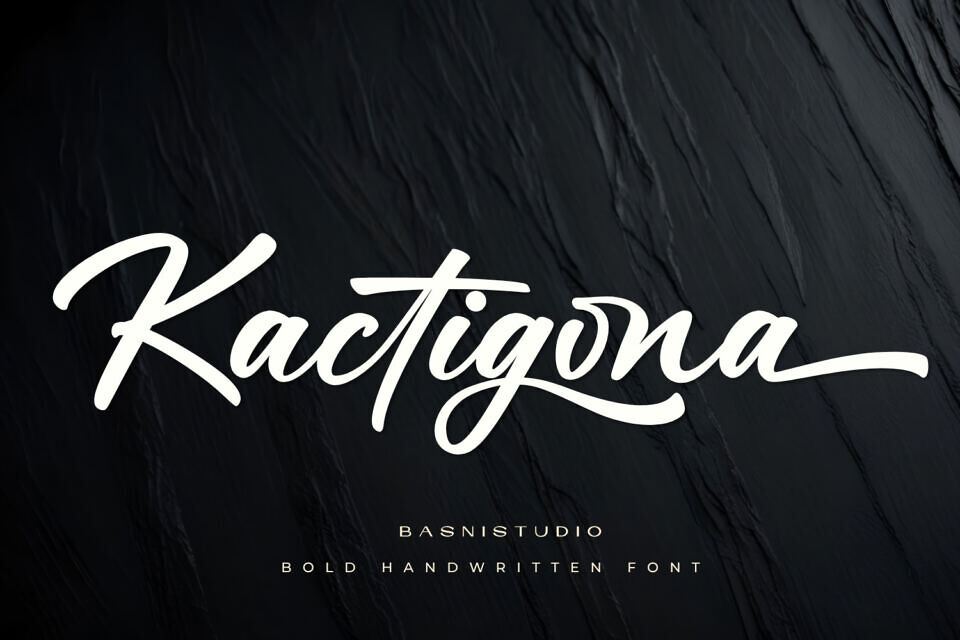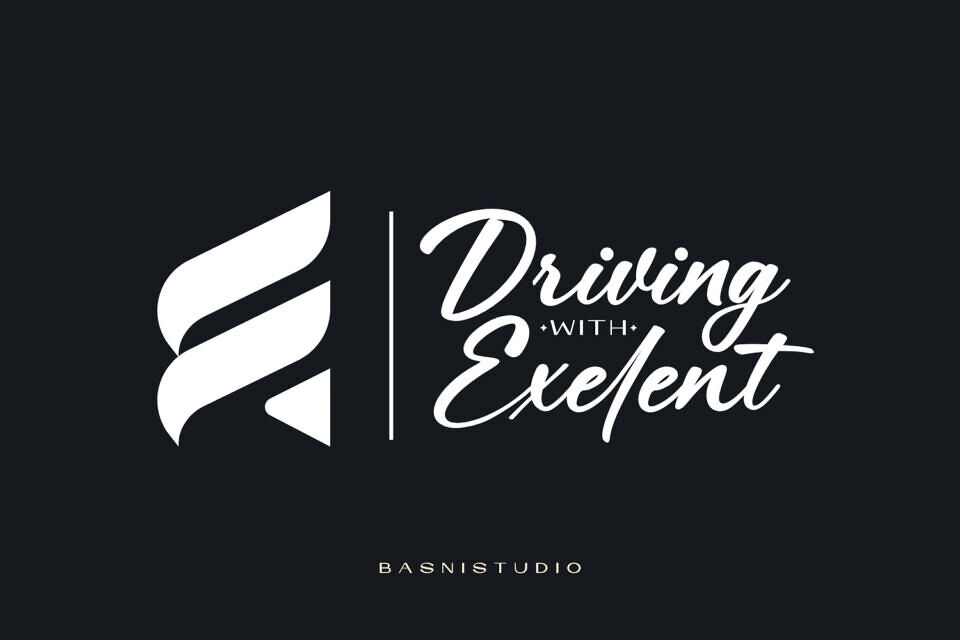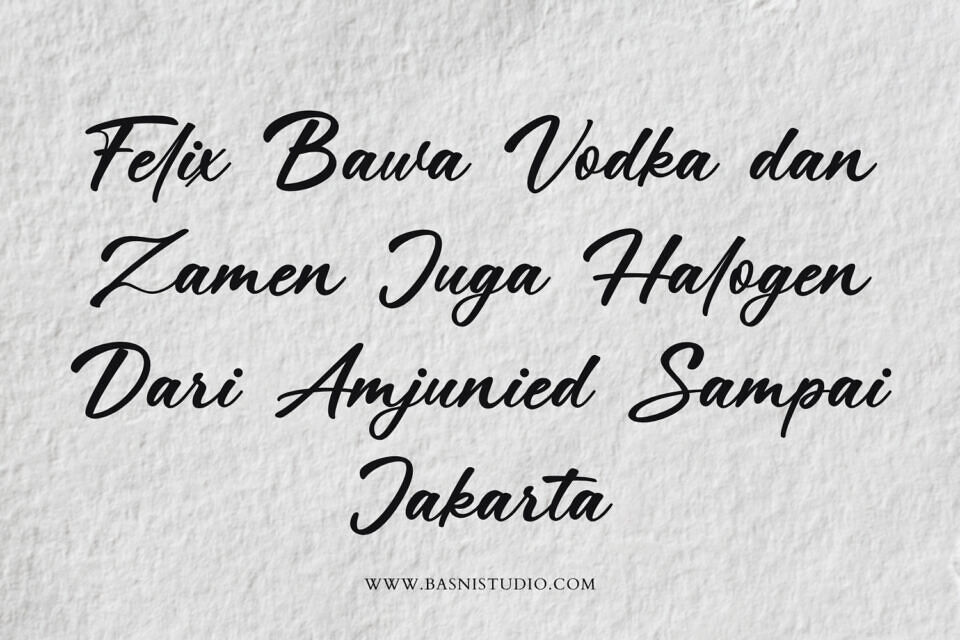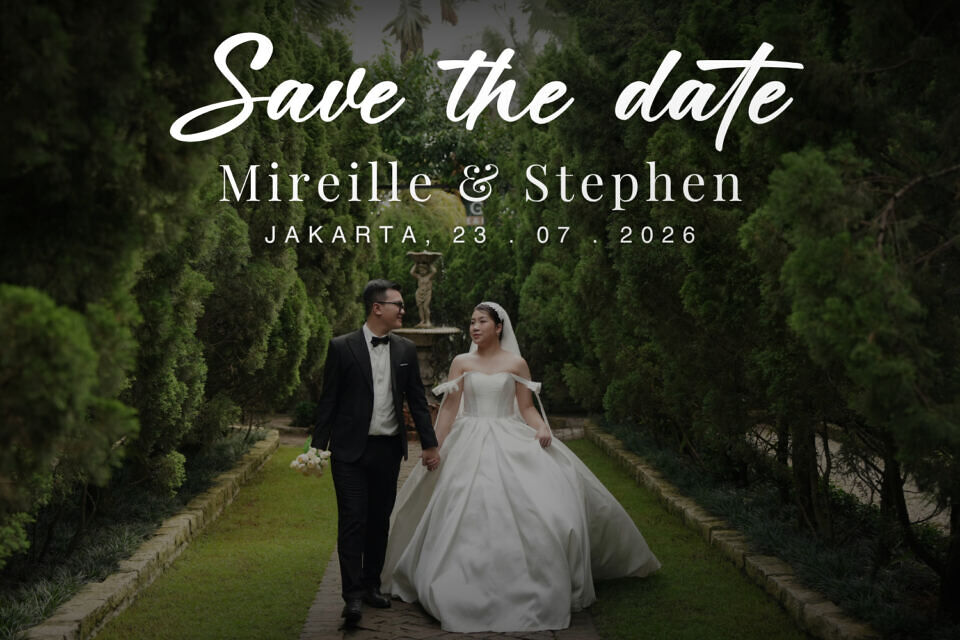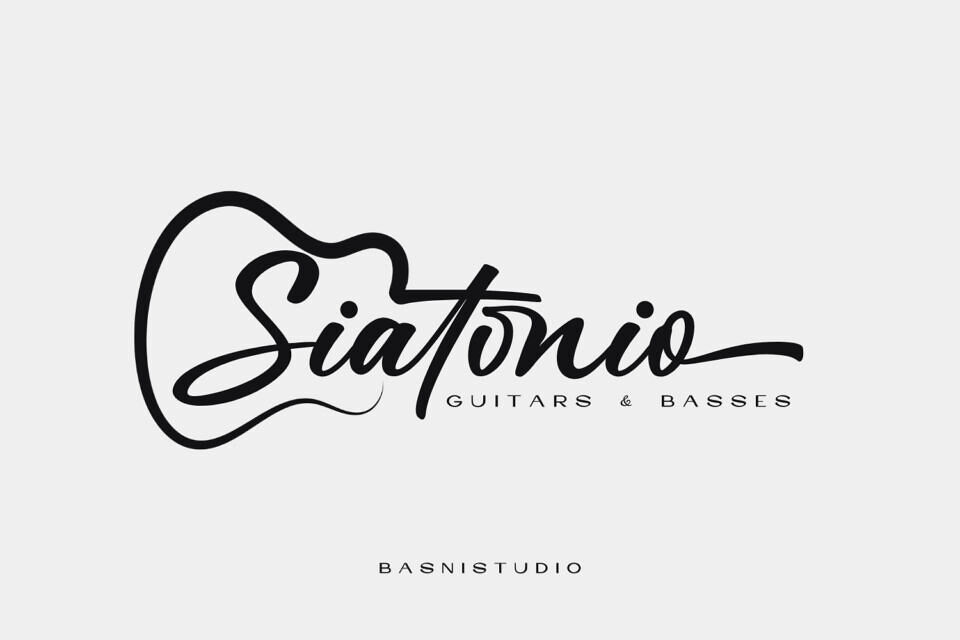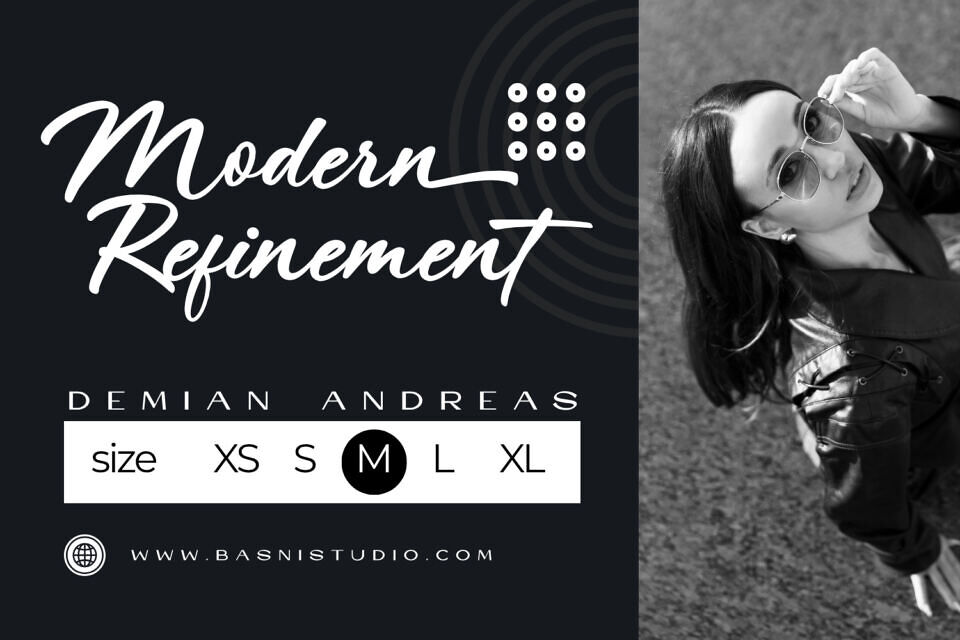
Kactigona is a bold, handwritten font that adds a personal touch to various designs, from branding to invitations. Its natural look, created with real pen strokes, makes it perfect for quotes, greeting cards, and taglines. Easy to use, it works well with major design programs, giving you a creative edge in building a strong brand identity or standout design.